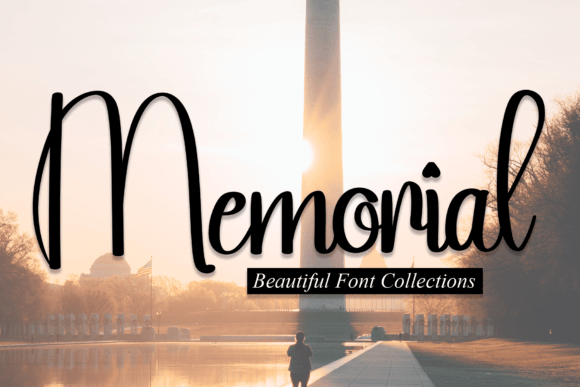
Journey into the world of typography with the captivating Memorial Font, a script font family that embodies the spirit of modernity and charm. Created by the visionary Strongkeng Old, this handwritten font exudes a fun and friendly vibe, making it the perfect choice for a wide range of creative projects.
Unleash your imagination and let Memorial Font dance across your designs, whether it's for crafting heartfelt greeting cards, adding a personal touch to digital designs, or captivating audiences in presentations. This font has the power to transform your words into works of art, leaving a lasting impression on all who encounter them.
With its graceful curves and playful strokes, Memorial Font possesses an undeniable charm that will elevate your designs to new heights. Its versatility knows no bounds, seamlessly adapting to a multitude of styles and themes. Whether you're seeking a touch of elegance for your wedding invitations or a dash of whimsy for your children's storybook, Memorial Font is your trusted companion.
Immerse yourself in a world where creativity flourishes and individuality shines. Memorial Font beckons you to break free from the ordinary and embrace the extraordinary. Let your designs blossom with the beauty of this remarkable font, turning your artistic visions into tangible masterpieces.